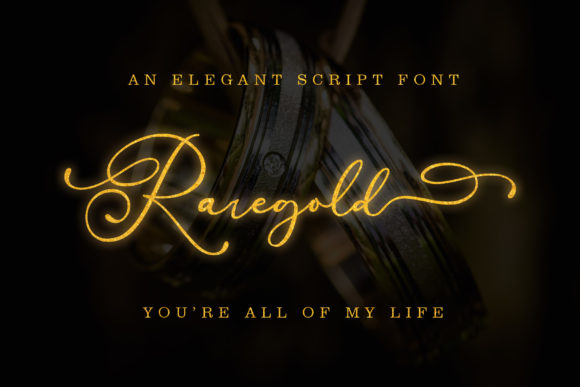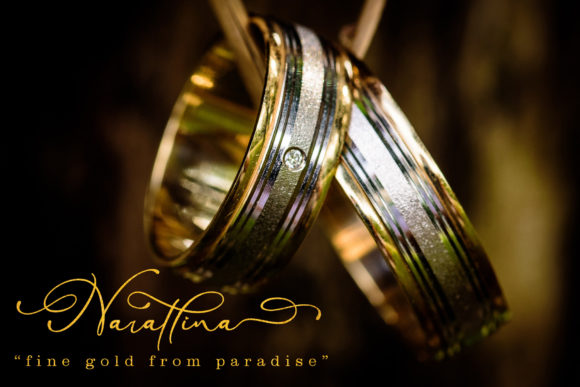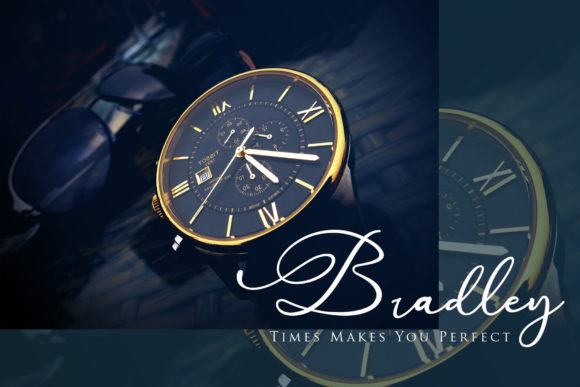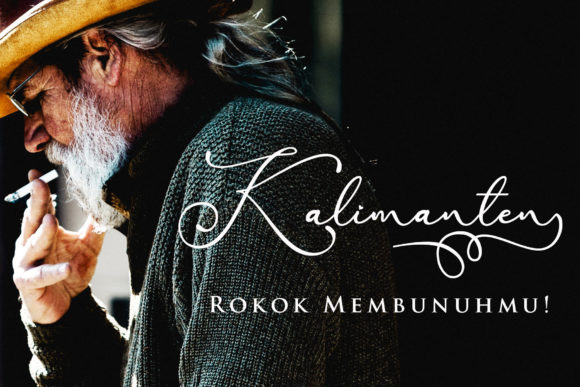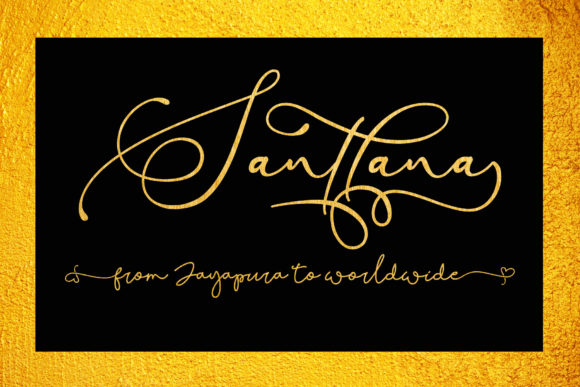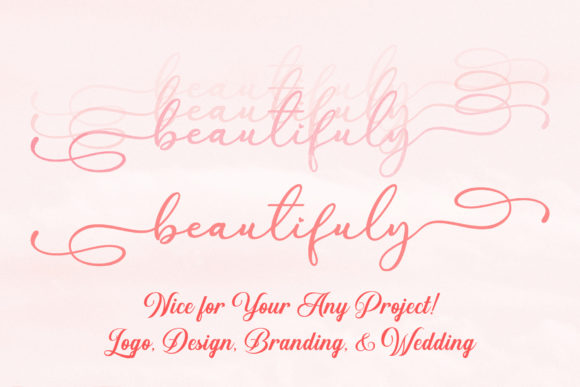
Raregold Font
About Raregold Font
Raregold is a stunningly sweet and playful handwritten font that will add a unique flavor to any design idea. Use it to turn any creative project into a standout!